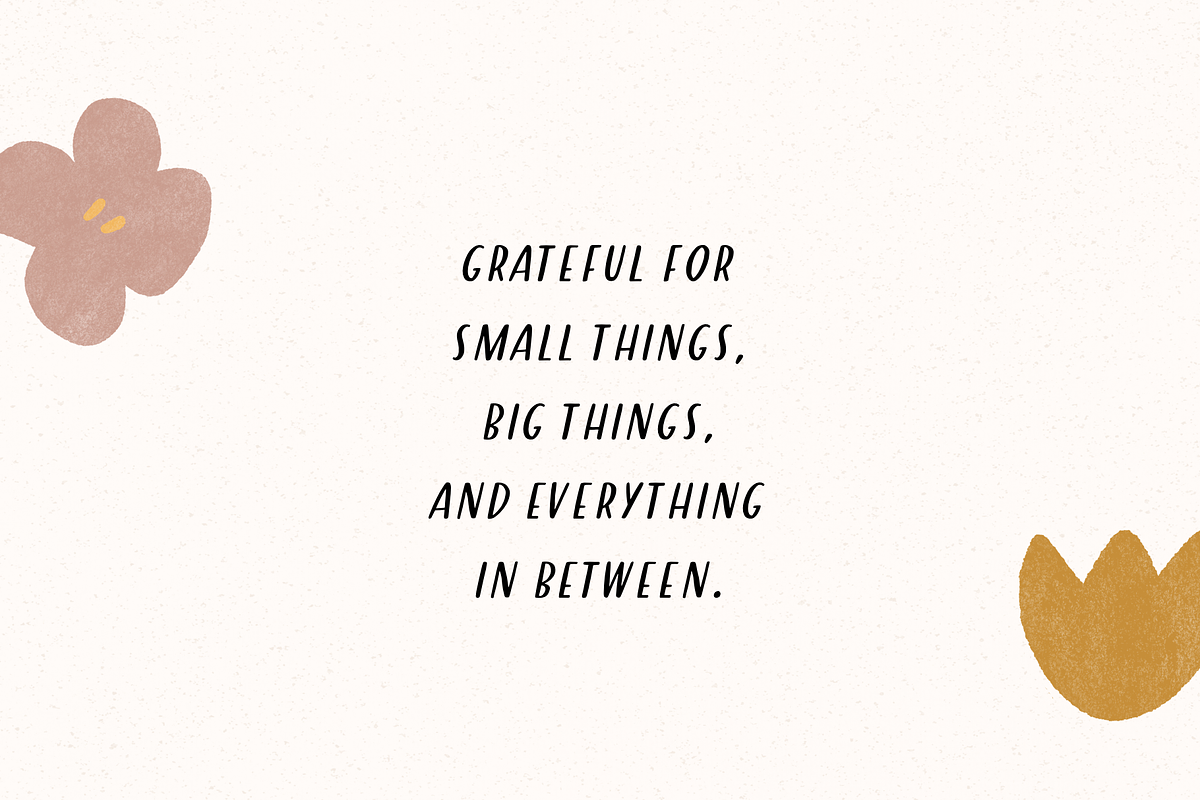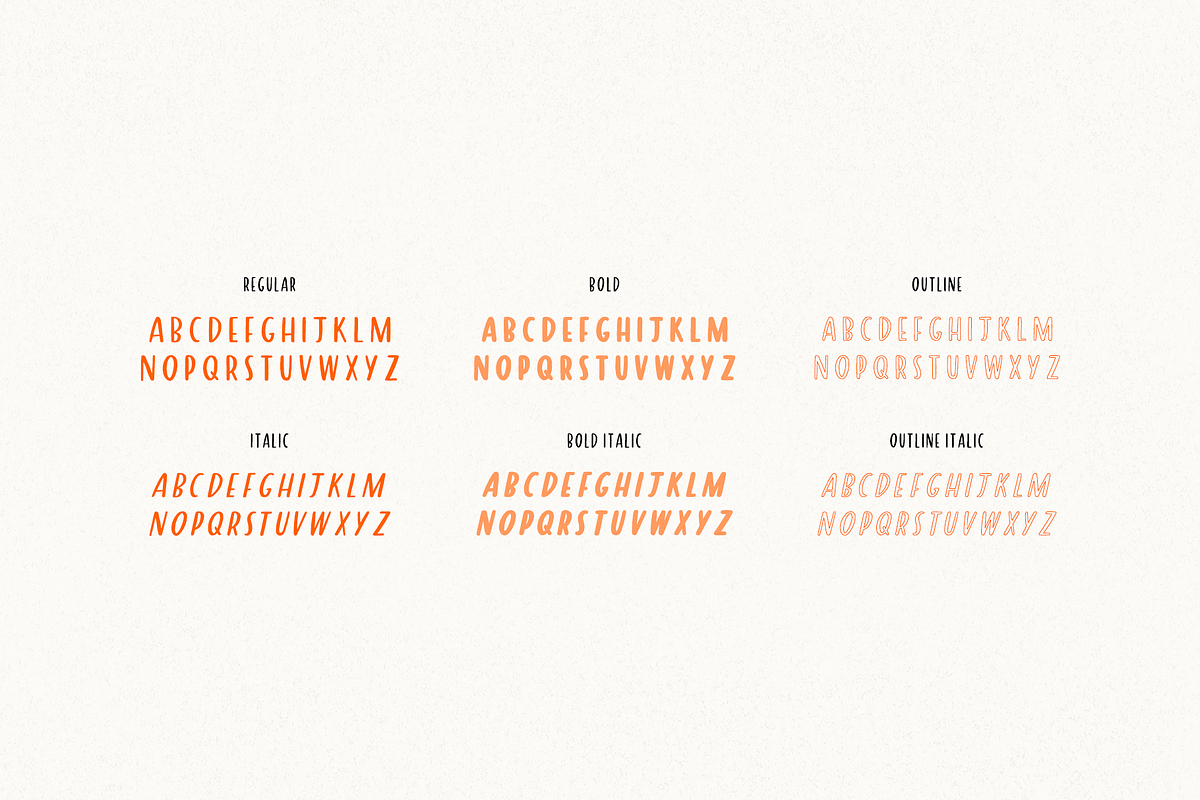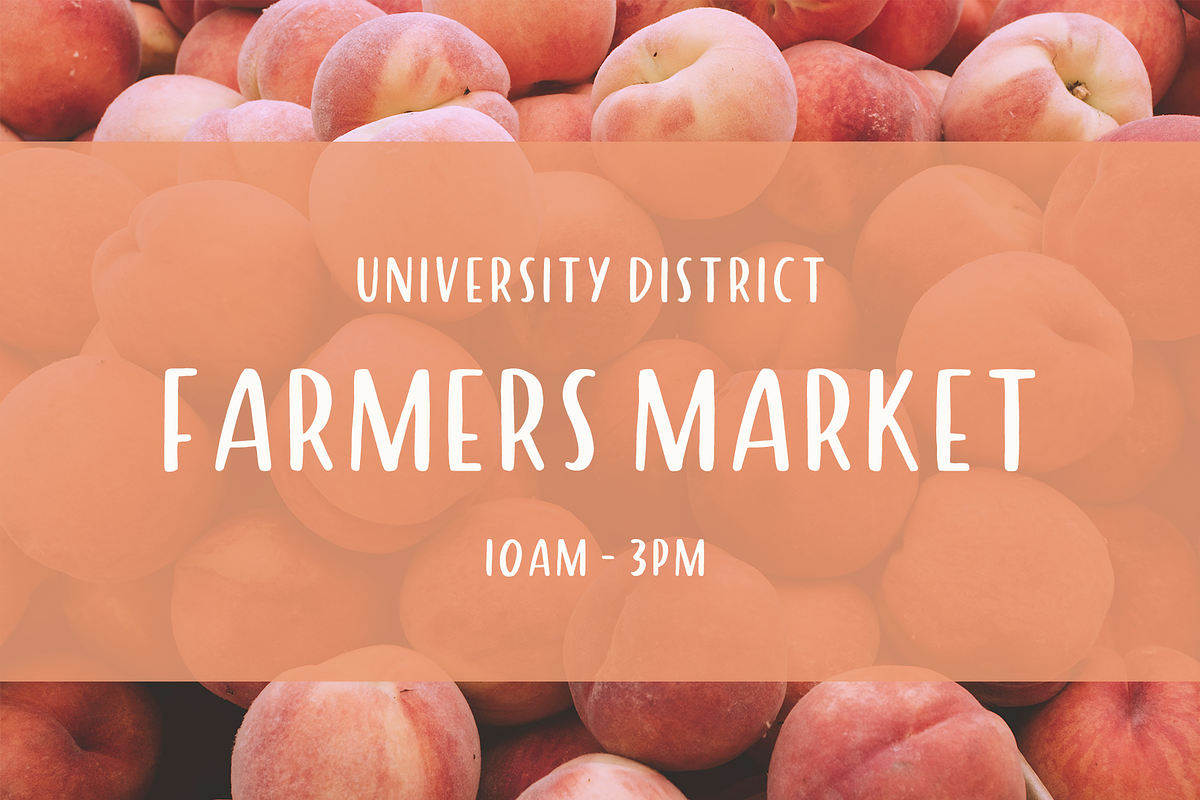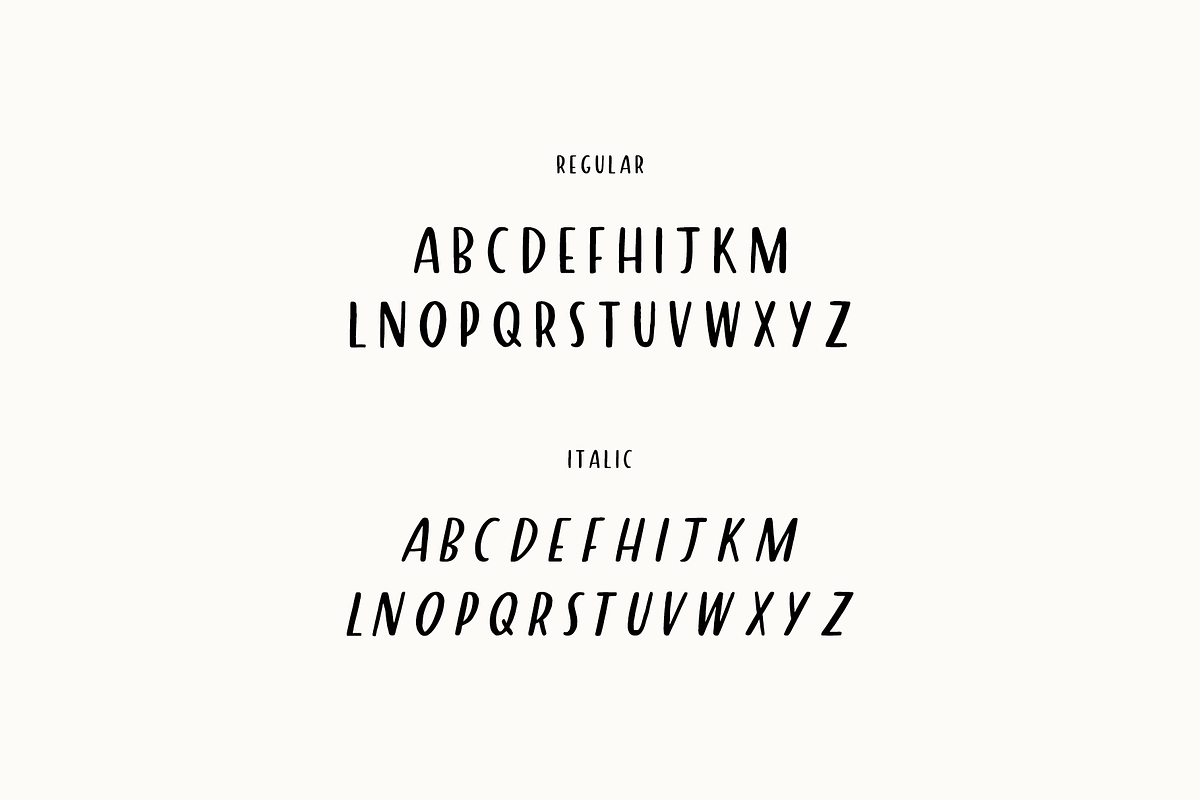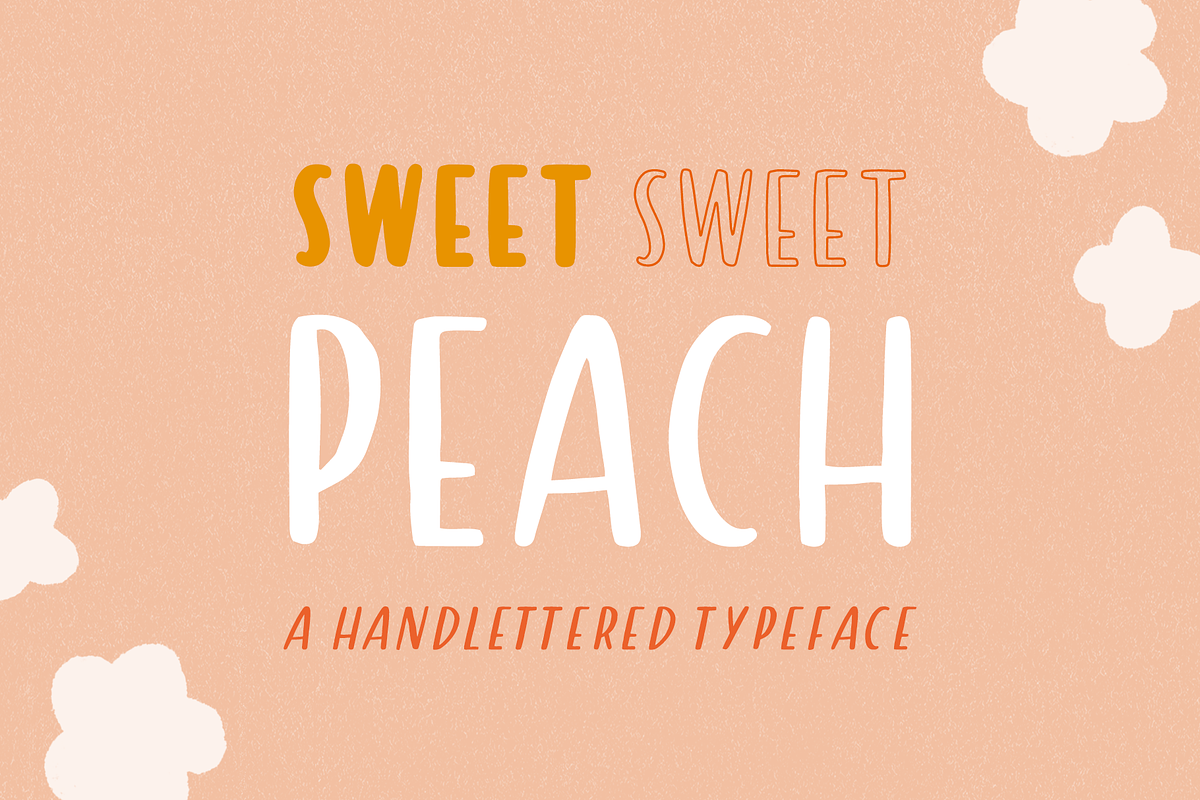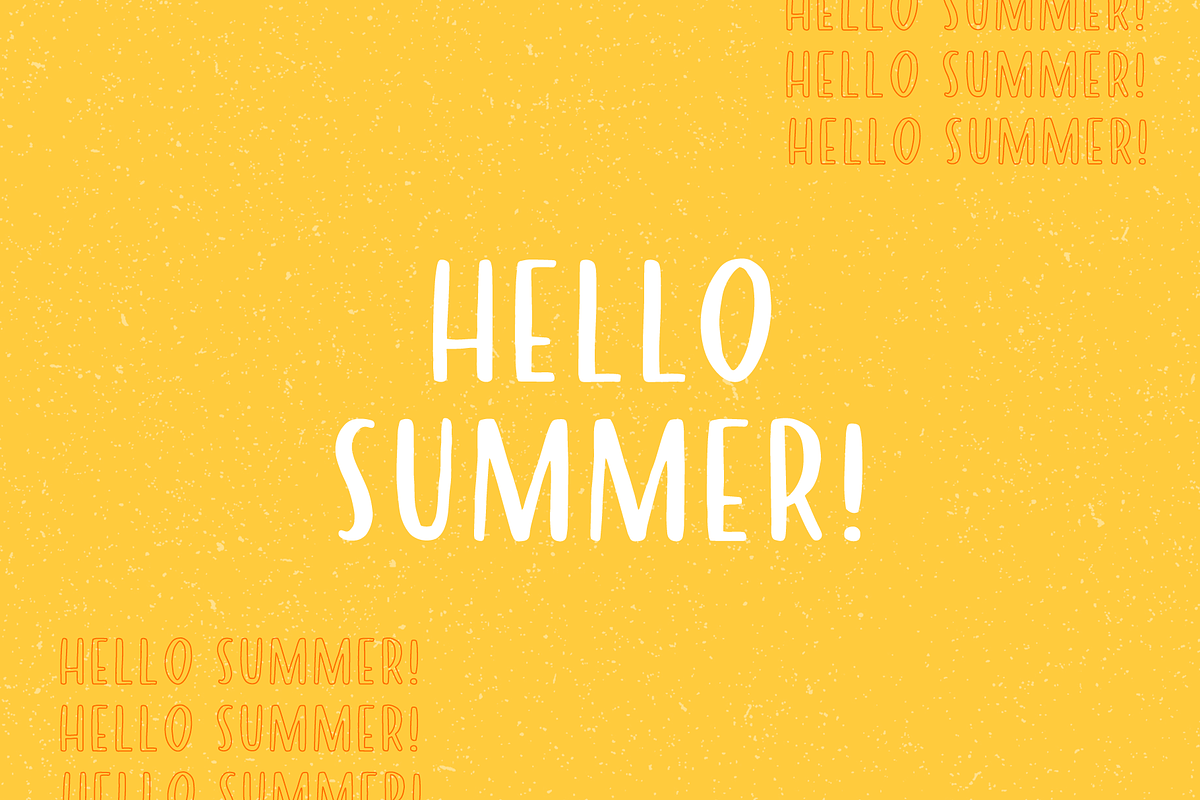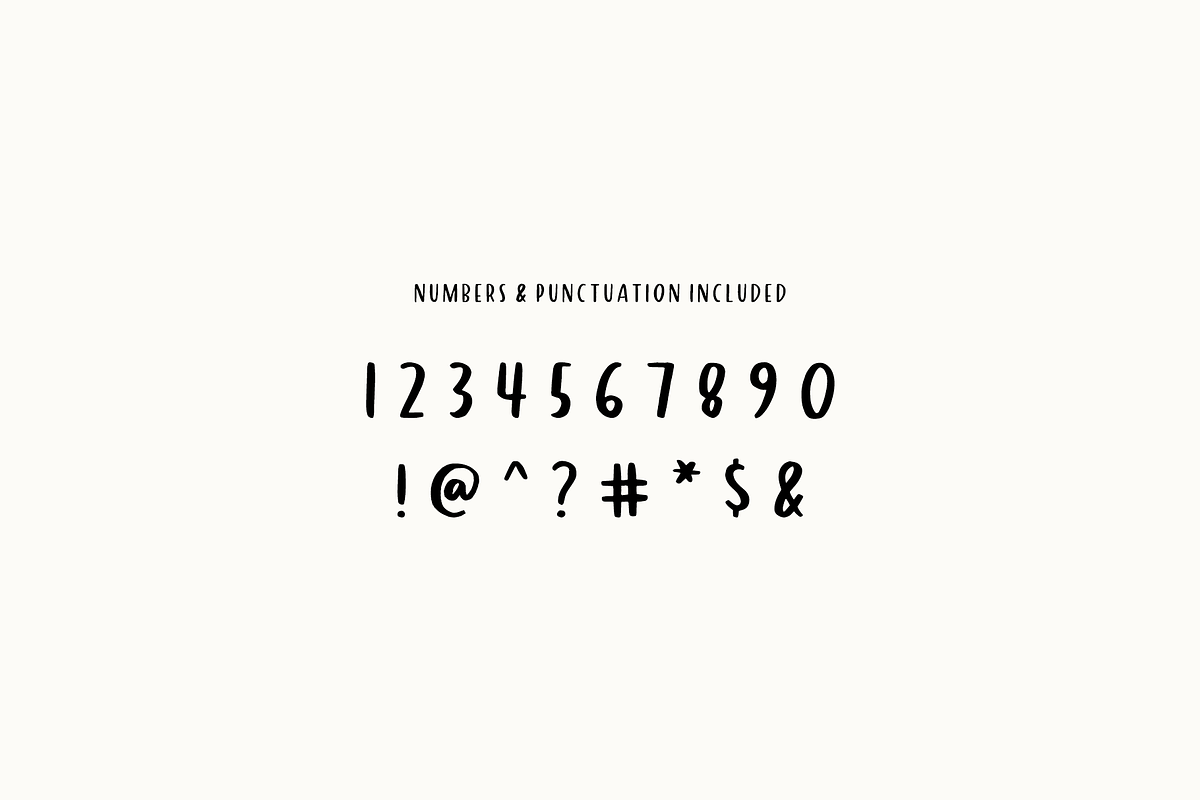
Sweet Peach - Fun Handlettered Font
SWEET PEACH - a cute and fun sans serif typeface. Its hand drawn style provides a slightly imperfect look, perfect to add a handmade touch to your projects. Use for logos, quotes, invitations, blog posts, business cards, presentations and more! This font is all caps and includes full numbers and punctuation.
• Regular, Italic, Bold, Bold Italic, Outline and Outline Italic
• Numbers & Punctuation